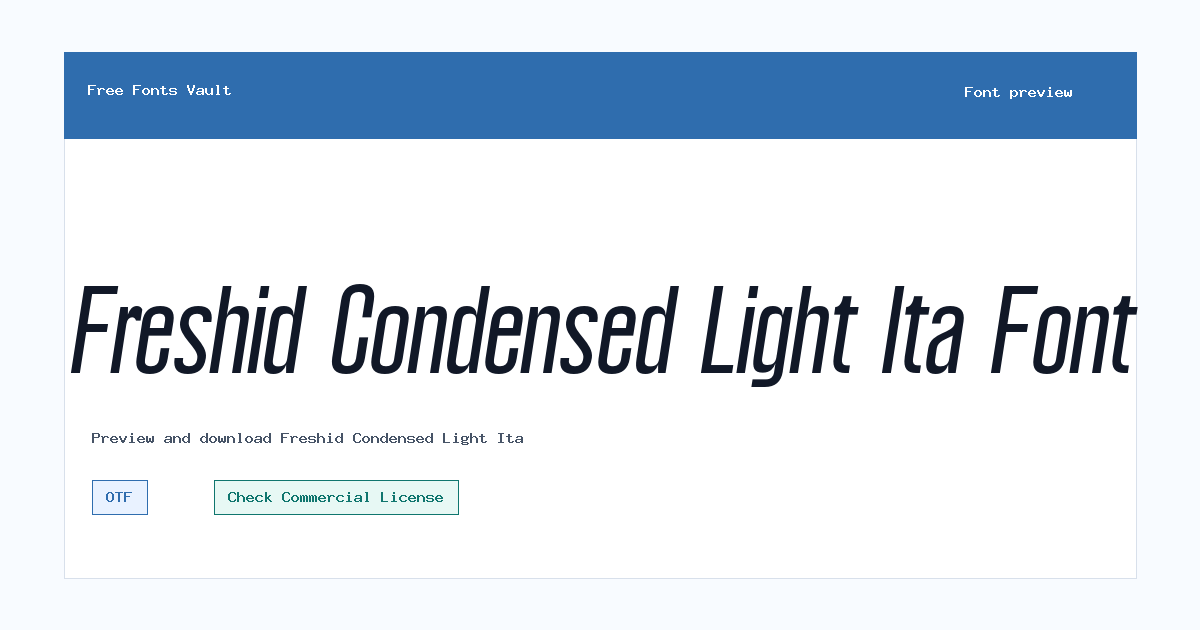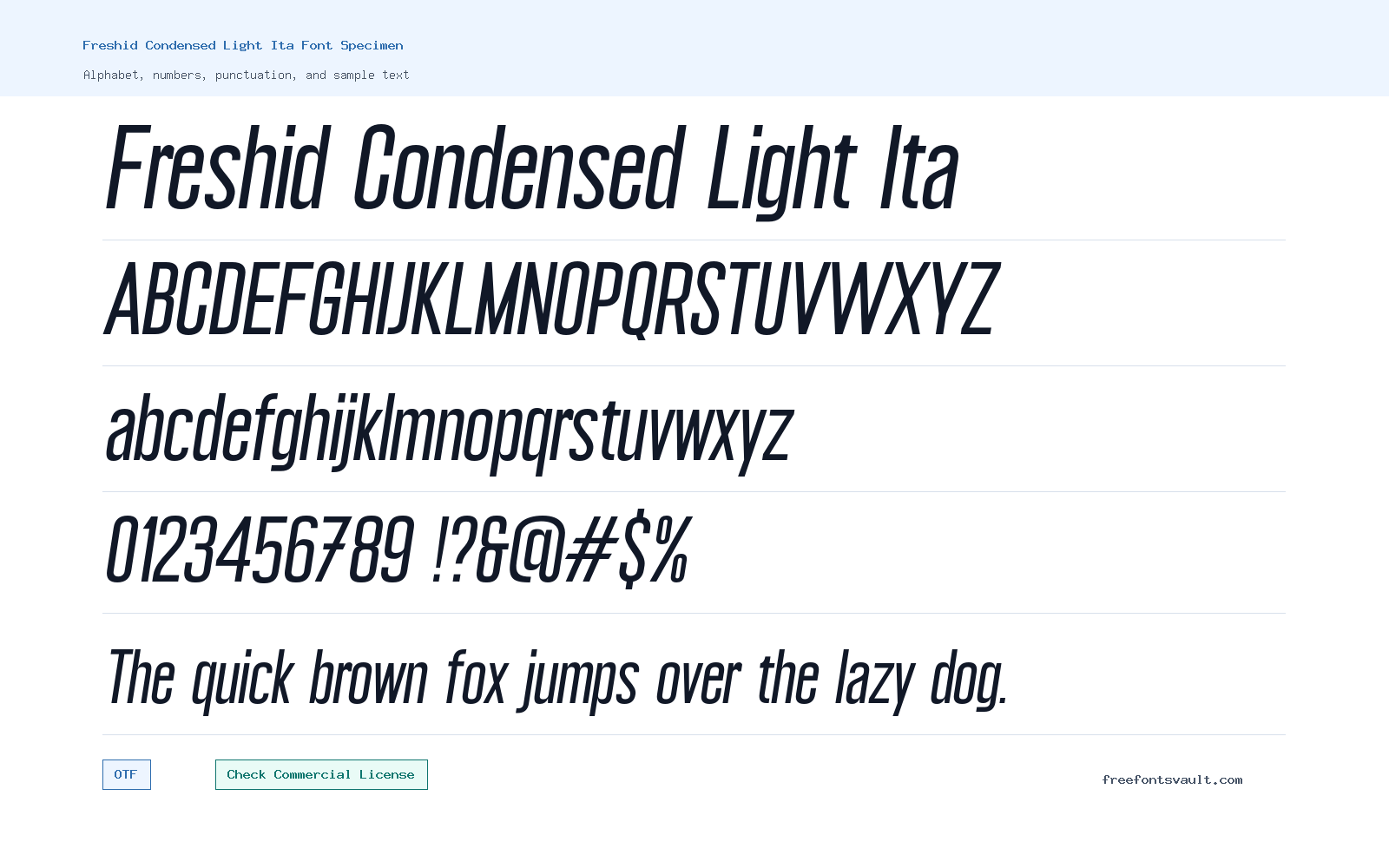
Freshid Condensed Light Ita
Freshid Condensed Light Ita Font
• Designer Wafi ZImamul
• Foundry Wappitype
Freshid Condensed Light Ita is a light, italic condensed font with a narrow shape and forward-leaning style. It is useful when you want text to feel slim, clean, and slightly dynamic without taking up much horizontal space.
Use the italic angle intentionally. It can make a simple heading feel more editorial or active, but too many angled lines can make a layout feel restless. One or two short lines usually work best.
About Freshid Condensed Light Ita
Freshid Condensed Light Ita comes as an OTF font file in a light 300 weight with an italic style. The condensed proportions make it a practical choice for tighter layouts, while the lighter stroke weight keeps the look refined. Because it is both narrow and italic, it works best when the text is not too long and the size is large enough for the details to stay clear.
• Condensed letterforms that save horizontal space in display layouts
• Light 300 weight with an italic style for a slim, angled look
• Posters, banners, and social graphics that need narrow italic lettering
• Short headings, pull quotes, labels, and title treatments
• Editorial or branding mockups where a light condensed accent font is useful
Freshid Condensed Light Ita is credited to Wafi ZImamul, with Wappitype listed as the foundry.
Keep the font for short text and display sizes. Test uppercase and lowercase spacing in the preview, and avoid very small sizes or low-contrast color combinations because the light italic strokes may become harder to read.
What style is Freshid Condensed Light Ita?
It is a light 300 weight italic font with condensed proportions.
What is this font best used for?
It is best for short display text such as headings, posters, banners, labels, pull quotes, and social graphics.
Who designed Freshid Condensed Light Ita?
The font is credited to Wafi ZImamul, with Wappitype listed as the foundry.